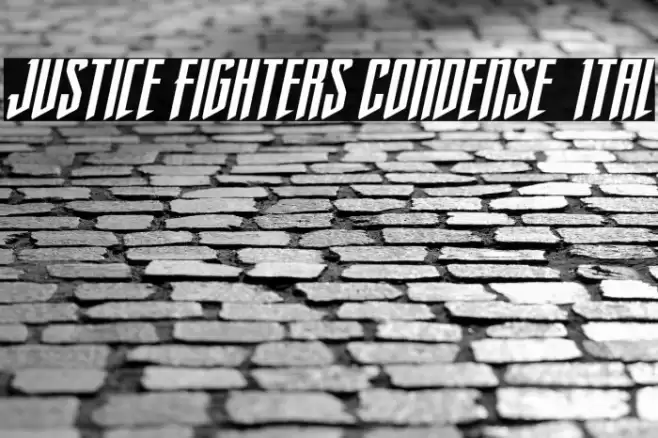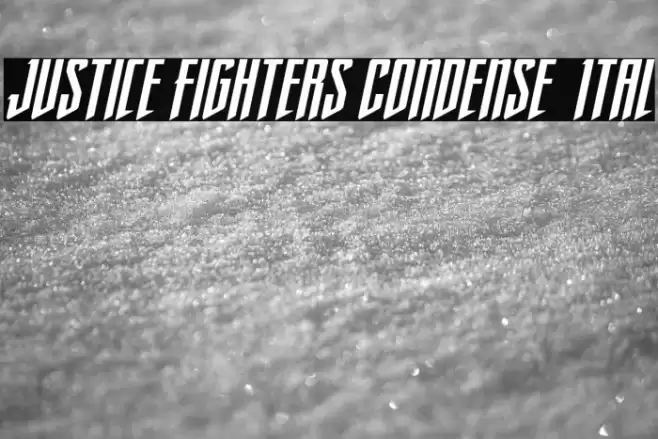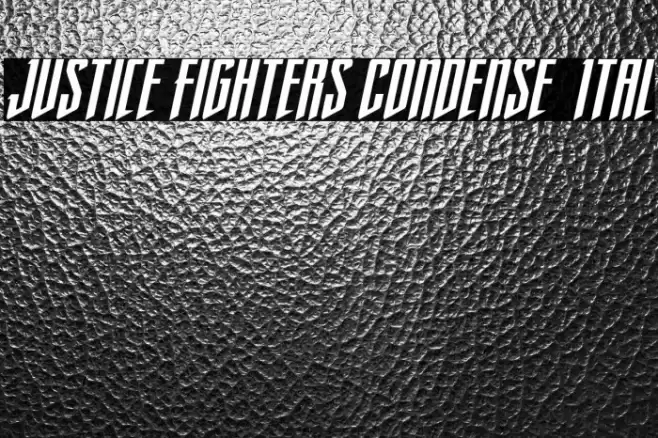
Justice Fighters Condense Ital Font
Justice Fighters Condense Ital Description
This font features a bold, condensed style with a distinct italic slant, giving it a dynamic and energetic appearance. The characters are sharply angled, creating a sense of movement and urgency. The uppercase letters are tall and narrow, while the lowercase letters maintain a consistent style, enhancing readability despite the condensed form. The numerals and special characters follow the same angular design, ensuring uniformity across all glyphs. This font's strong geometric shapes and slanted orientation make it ideal for impactful designs.
A bold, condensed, and italic font with sharp angles and dynamic style from Regular fonts.
- Proposed Projects: Ideal for action-themed posters, sports branding, video game titles, and dynamic advertising campaigns.